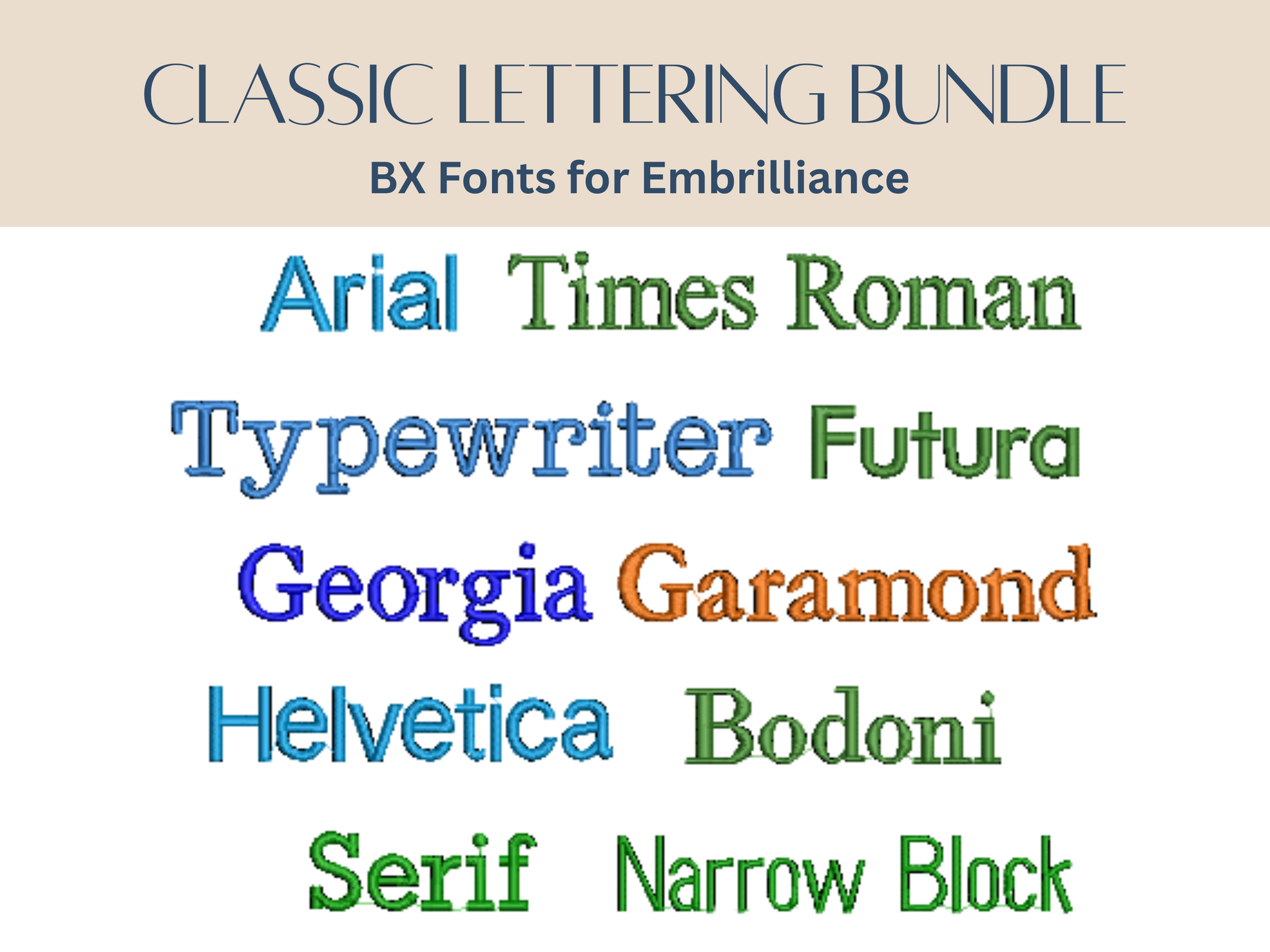
Classic Lettering Bundle BX Fonts
✨ Classic BX Lettering Bundle – 10 Essential Fonts! ✨
Give your embroidery projects a professional, polished look with this must-have BX font collection! Perfect for creating crisp, easy-to-read text, this bundle combines 10 timeless styles in one convenient package:
✔️ Arial – 1, 2 and 3 inch
✔️ Times Roman – 1 and 2 inch
✔️ Typewriter – 1, 2 and 3 inch
✔️ Narrow Block - 1, 2 and 3 inch
✔️ Georgia – 1, 1.5 and 2 inch
✔️ Garamond – 1, 1.5 and 2 inch
✔️ Helvetica – 1, 2 and 3 inch
✔️ Futura 1, 1.5 and 2 inch
✔️ Serif – 0.5, 1 and 1.5 inch
✔️ Bodoni – 1, 1.5 and 2 inch
From bold block letters to elegant serif fonts, this bundle is ideal for monograms, names, labels, quotes, and more. Whether you’re stitching gifts, personalizing items, or adding text to designs, these fonts ensure clarity and style every time.